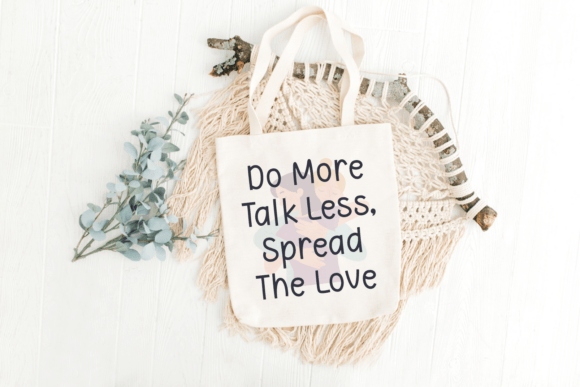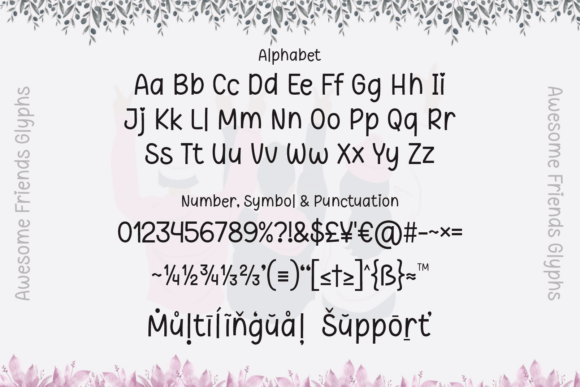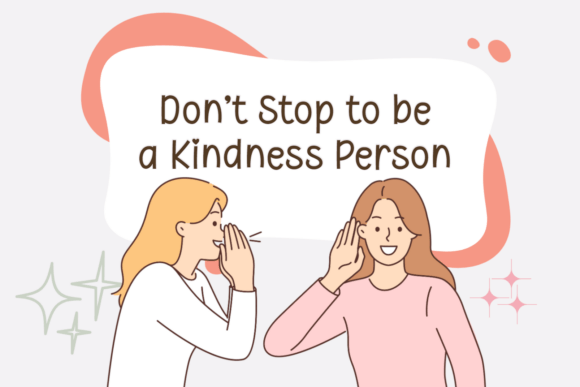
Unlock the Magic of Friendship with Awesome Friends Font
Have you ever stumbled upon a font that instantly makes you smile? For designers, that moment is like finding a hidden treasure. It’s the moment when you know you’ve got the perfect tool to bring your creative vision to life. For me, that moment happened when I discovered the Awesome Friends Font – a beautiful, handwritten font that radiates warmth and charm.
Designed to capture the essence of friendship and fun, the Awesome Friends Font is perfect for invitations, greeting cards, logos, and personal projects. Its playful, free-flowing style makes it effortless to add a touch of personality and creativity to any design. As a designer, having access to versatile fonts like Awesome Friends Font can be a game-changer, allowing you to bring your unique style to every project.
- Font Family: Awesome Friends Font is a unique, hand-drawn font designed to convey a sense of friendship and camaraderie.
- Unique Characteristics: Features a mix of rounded and pointed shapes, giving it a friendly and approachable feel, perfect for branding and marketing materials.
Designer Review: Awesome Friends Font
At first glance, the Awesome Friends Font seems like a great addition to any design project. The playful and energetic feel is sure to bring a smile to the faces of users. ✨ The font’s flexibility makes it suitable for a variety of applications, from casual social media posts to children’s educational materials.
One of the standout features of this font is its accessibility. It’s highly legible, even at smaller font sizes, making it an excellent choice for websites and digital interfaces. ✨ Additionally, the font’s compatibility with various operating systems and devices ensures that it will look great on any platform.
While the Awesome Friends Font has many positives, there are some limitations that need to be considered. ⚠️ One of the main concerns is the font’s lack of sophistication, which may not be suitable for more formal or professional projects. Additionally, the font’s overuse of rounded shapes and playful flourishes can become overwhelming if not used judiciously.
Overall, the Awesome Friends Font is a solid choice for designers looking to add a bit of whimsy to their projects. While it may not be the best fit for every design scenario, it’s a great option for those seeking a fun and energetic feel.
- Highly legible and accessible
- Flexible and suitable for various applications
- Lacks sophistication and may not be suitable for formal projects
- May become overwhelming with excessive use
Use the Awesome Friends Font for creating eye-catching headings and titles.
It’s ideal for social media graphics, posters, and flyers.
For best results, use it in conjunction with bold and bright colors to make your designs stand out.